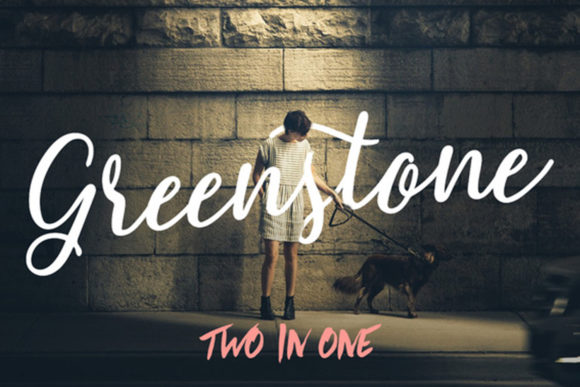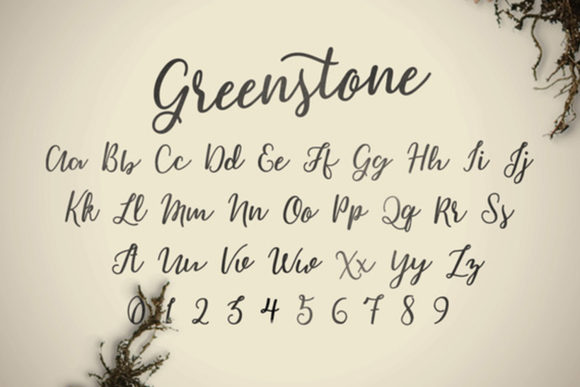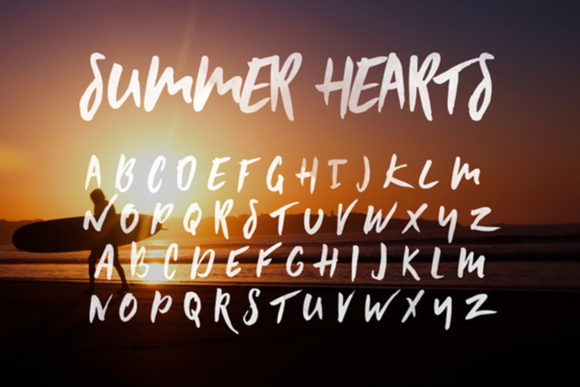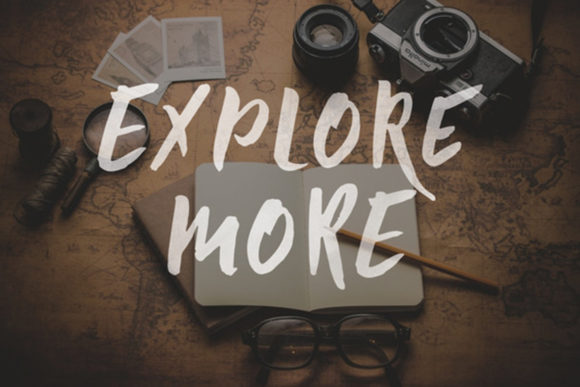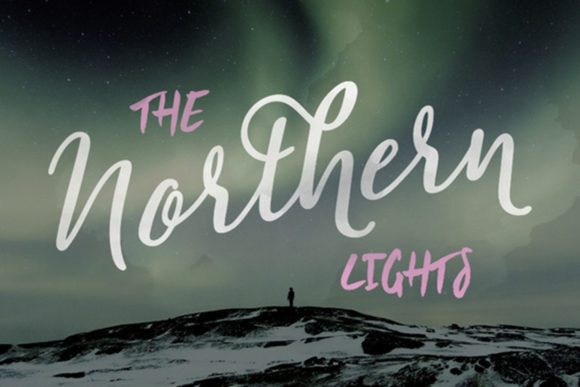
Greenstone Font
About Greenstone Font
Greenstone is a hand-lettered typeface created with a mix of pens and brushes. Get inspired by its contemporary coolness!